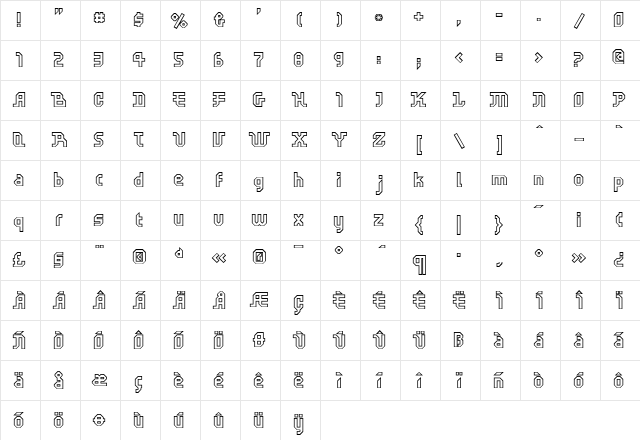
FFScratchOutline Regular
Design Context for FFScratchOutline Typeface
FFScratchOutline is built around its visual character rather than neutral utility — its distinctive forms are designed to make an impression at display sizes.
Font Pairing: Pair with a clean neutral sans-serif for body copy to let FFScratchOutline's character lead without overwhelming the composition.
Pro Tip: Use FFScratchOutline exclusively at display sizes — it was designed to be seen, not read at length. Let a neutral companion handle body copy.